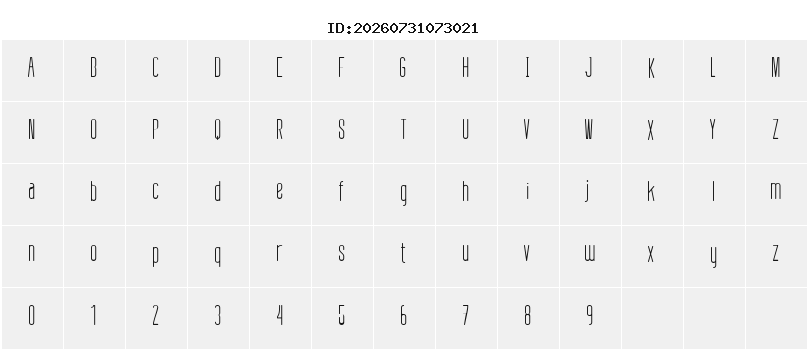
• Font Name: Linja
About Linja.ttf
Linja.ttf is a modern, elegant sans-serif font designed for ultimate readability and visual harmony. Perfect for branding, headlines, web design, and print materials.